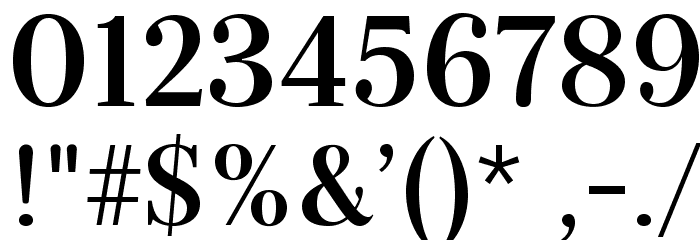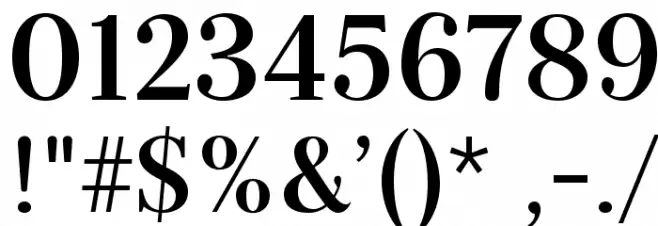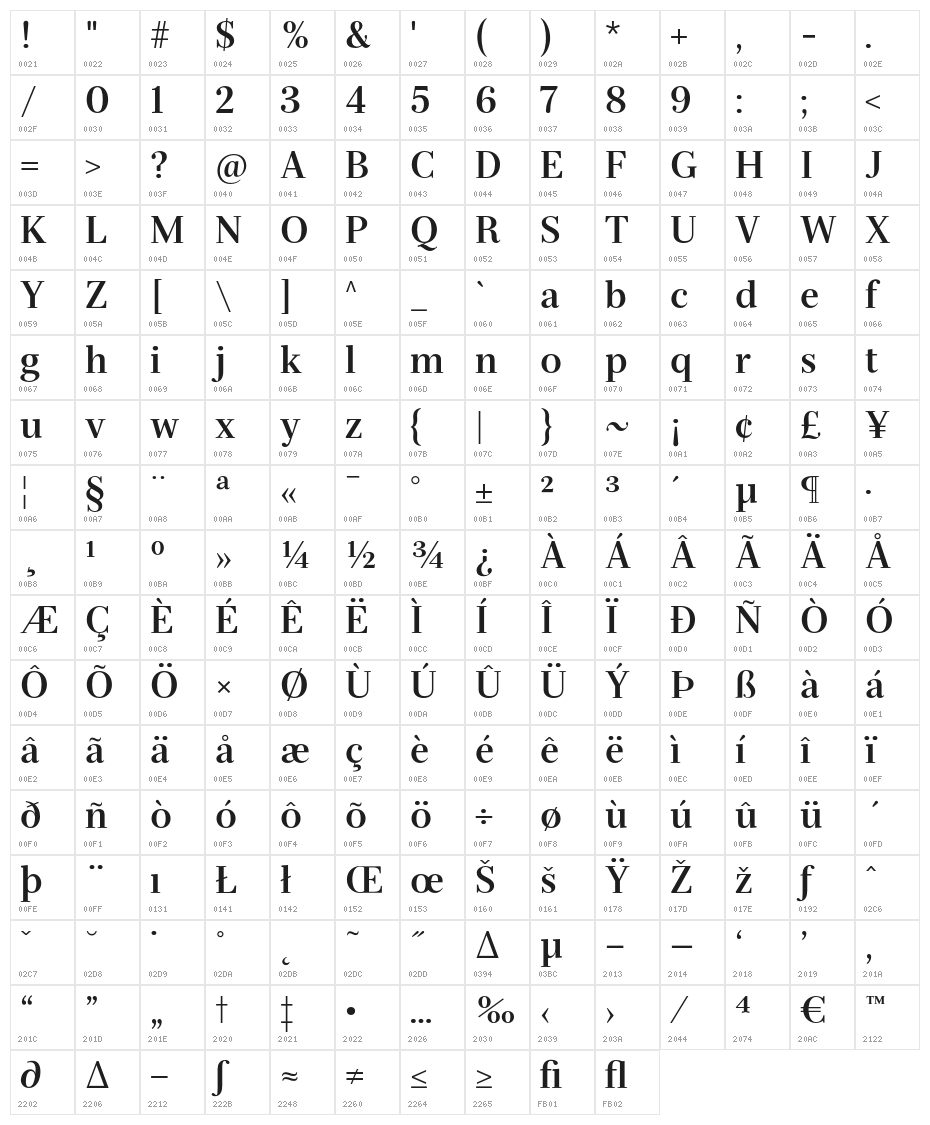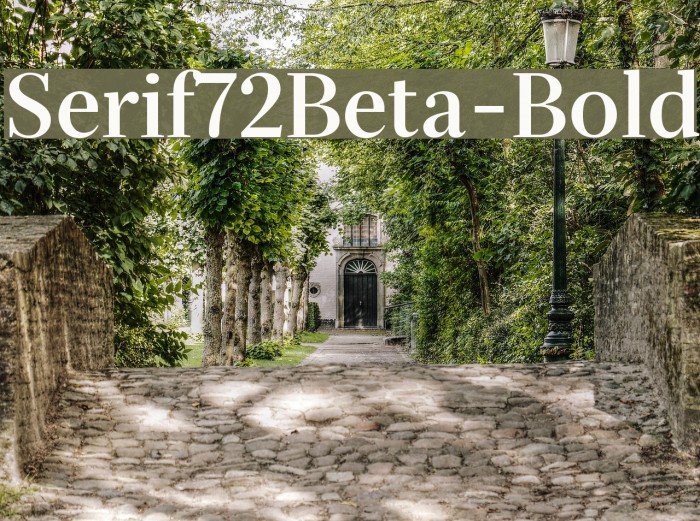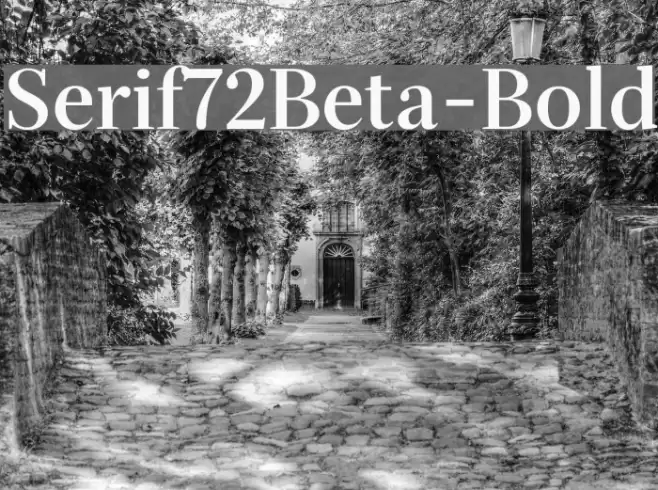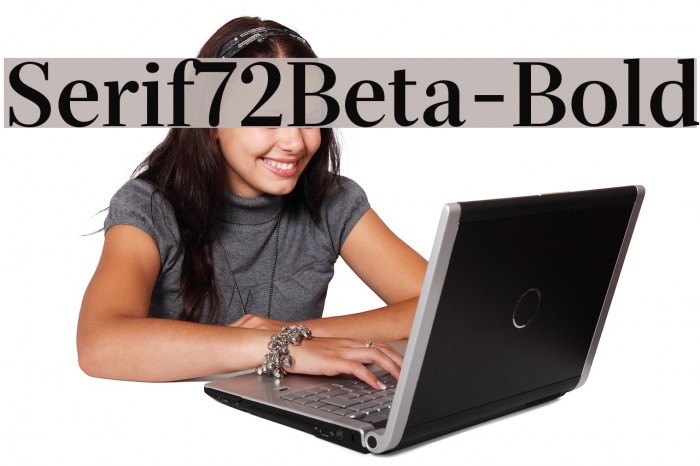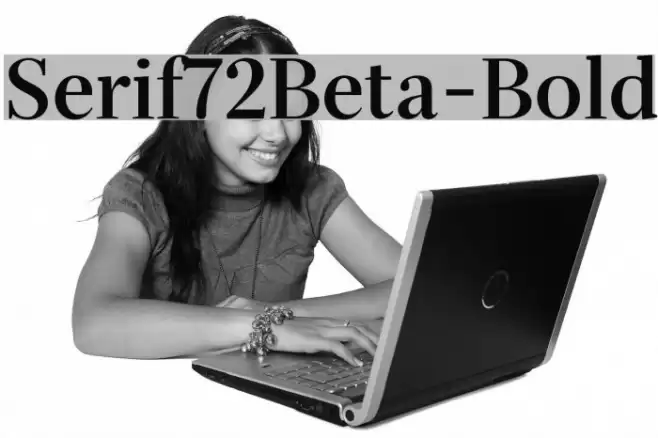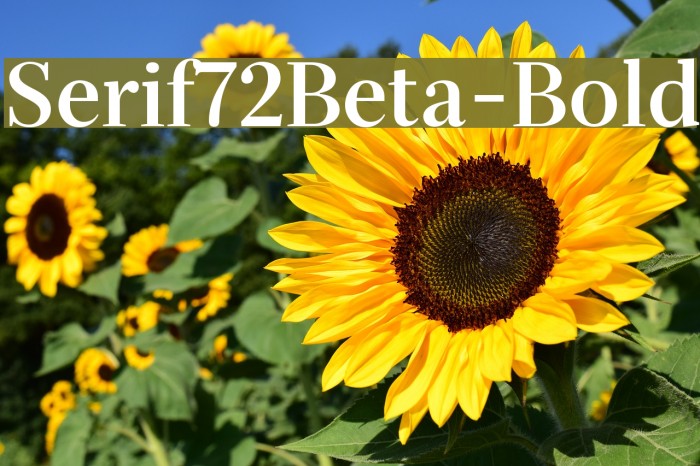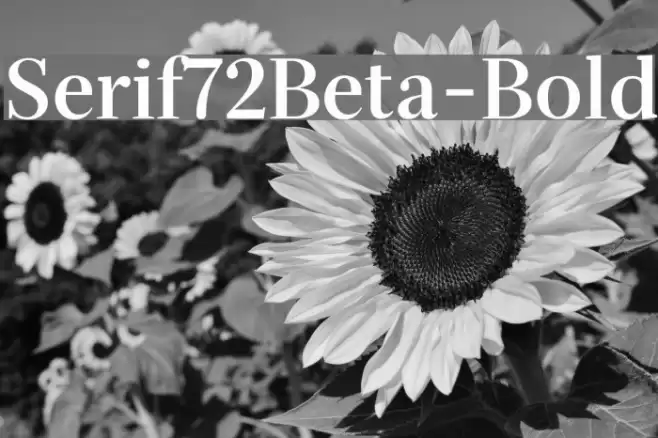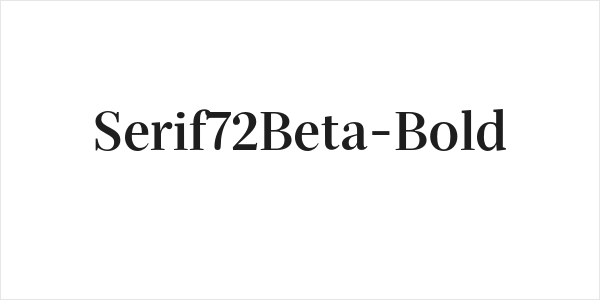
Serif72Beta-Bold Font
Serif72Beta-Bold Description
This font exhibits a classic serif style with a bold weight, characterized by its strong and pronounced serifs. The letters are well-defined with a high contrast between thick and thin strokes, giving it a traditional yet authoritative appearance. The uppercase letters are tall and commanding, while the lowercase letters maintain a consistent and readable form. The numerals are clear and distinct, making them suitable for both text and display purposes. Special characters are elegantly integrated, maintaining the overall aesthetic of the font. The spacing between characters is normal, ensuring readability without compromising style.
Overall StyleClassic